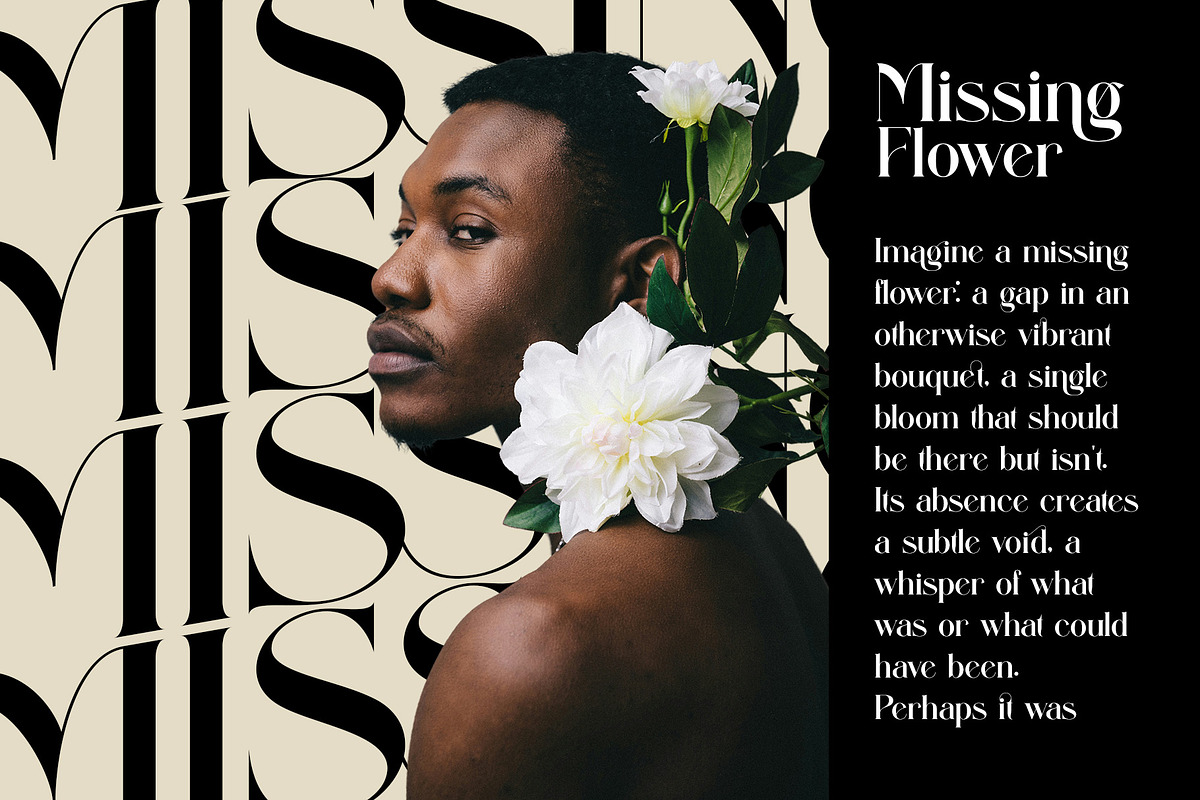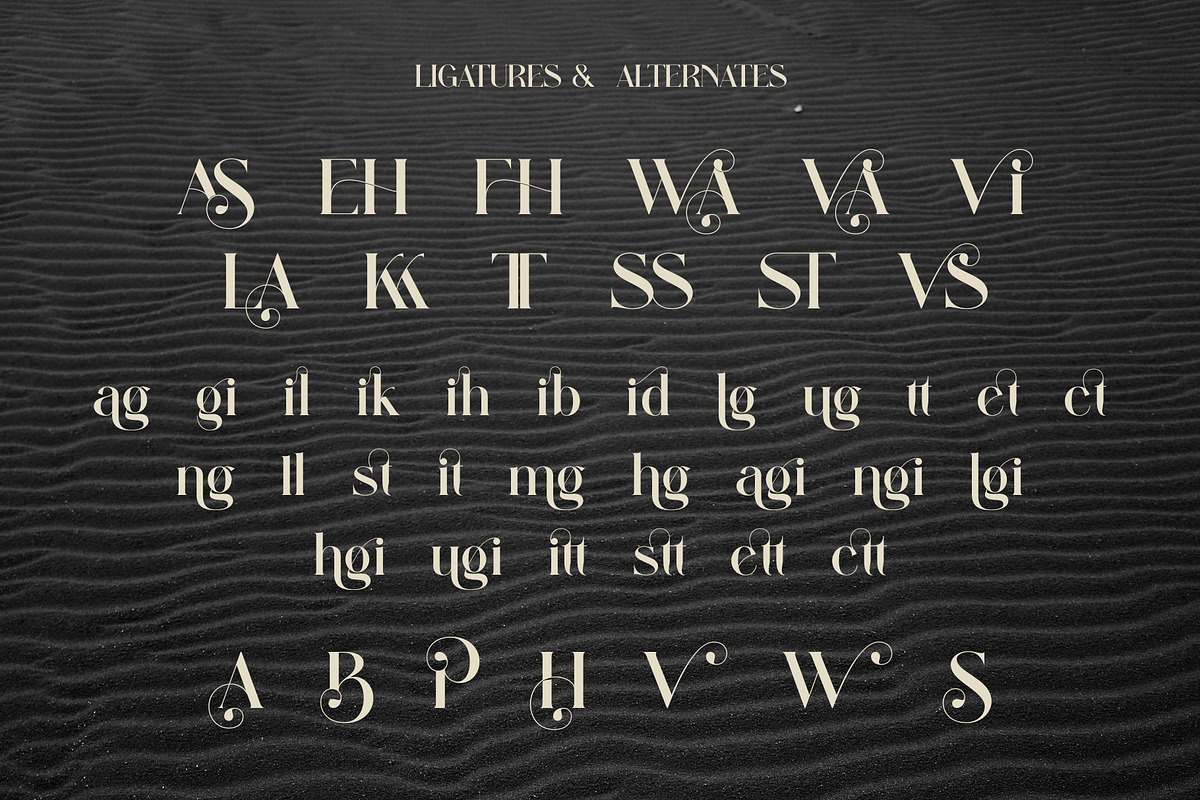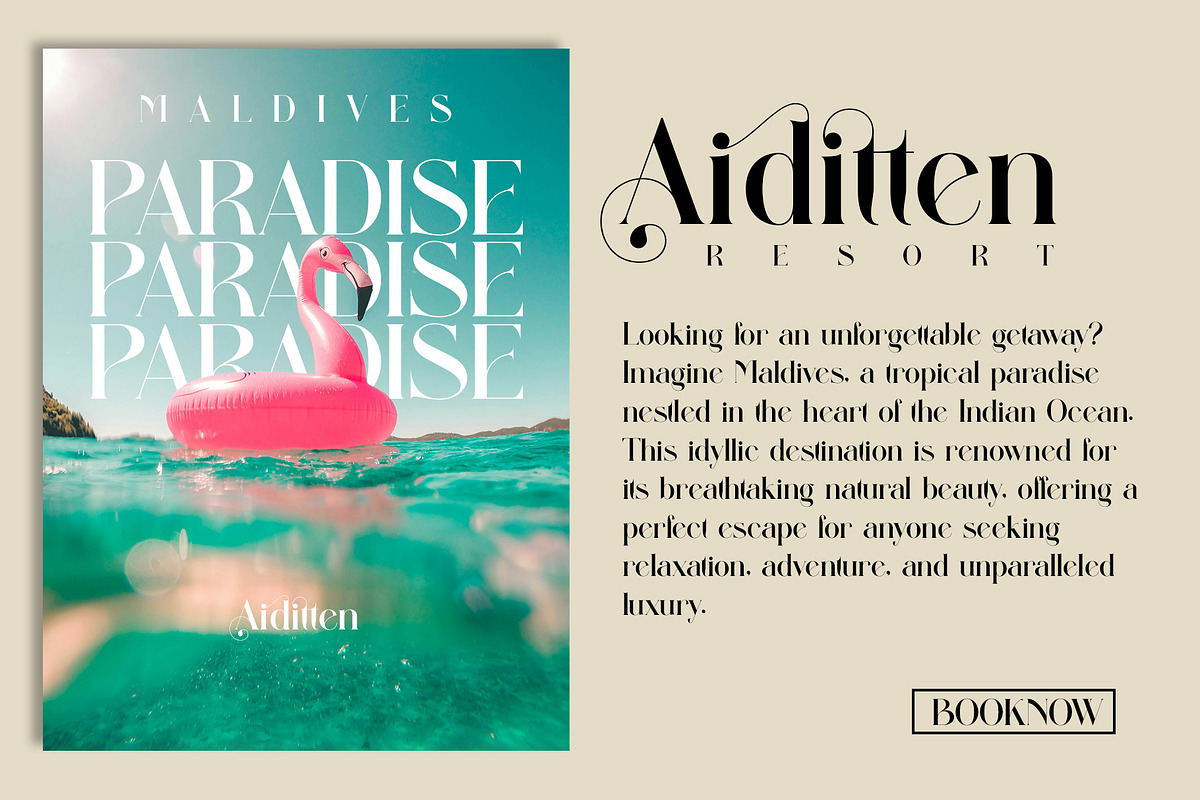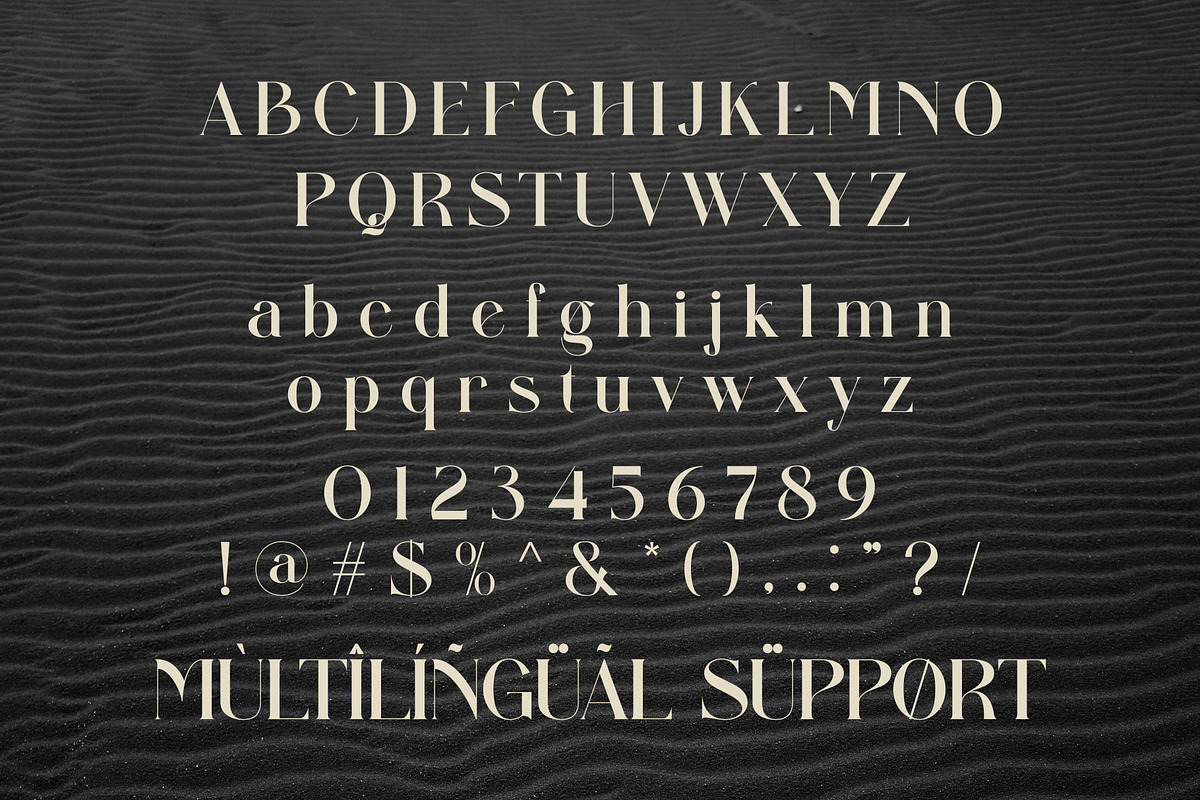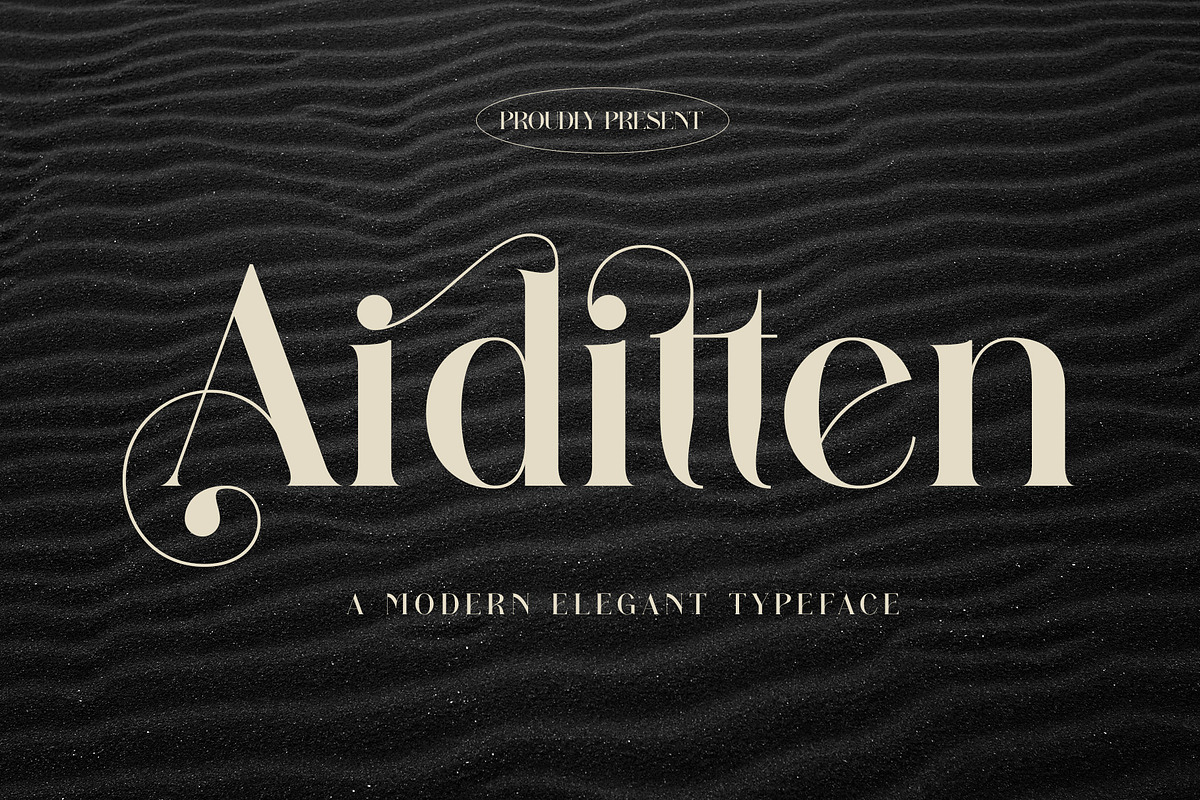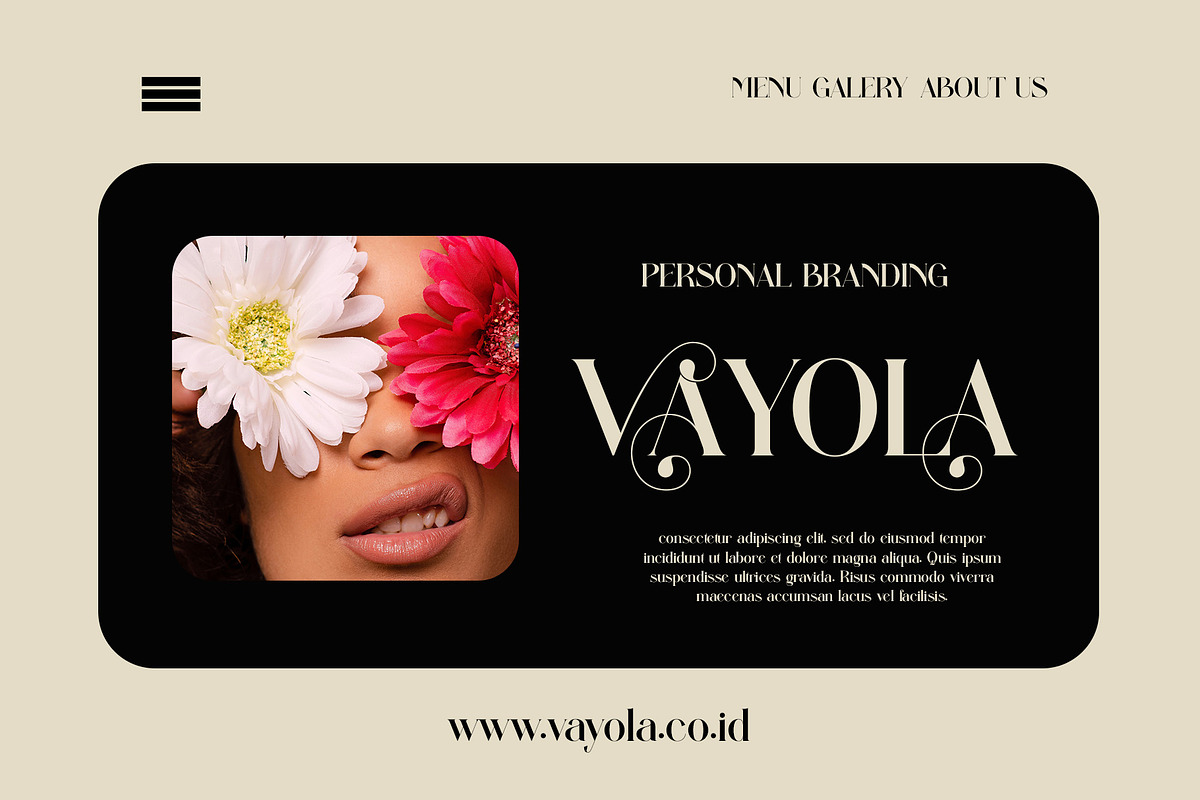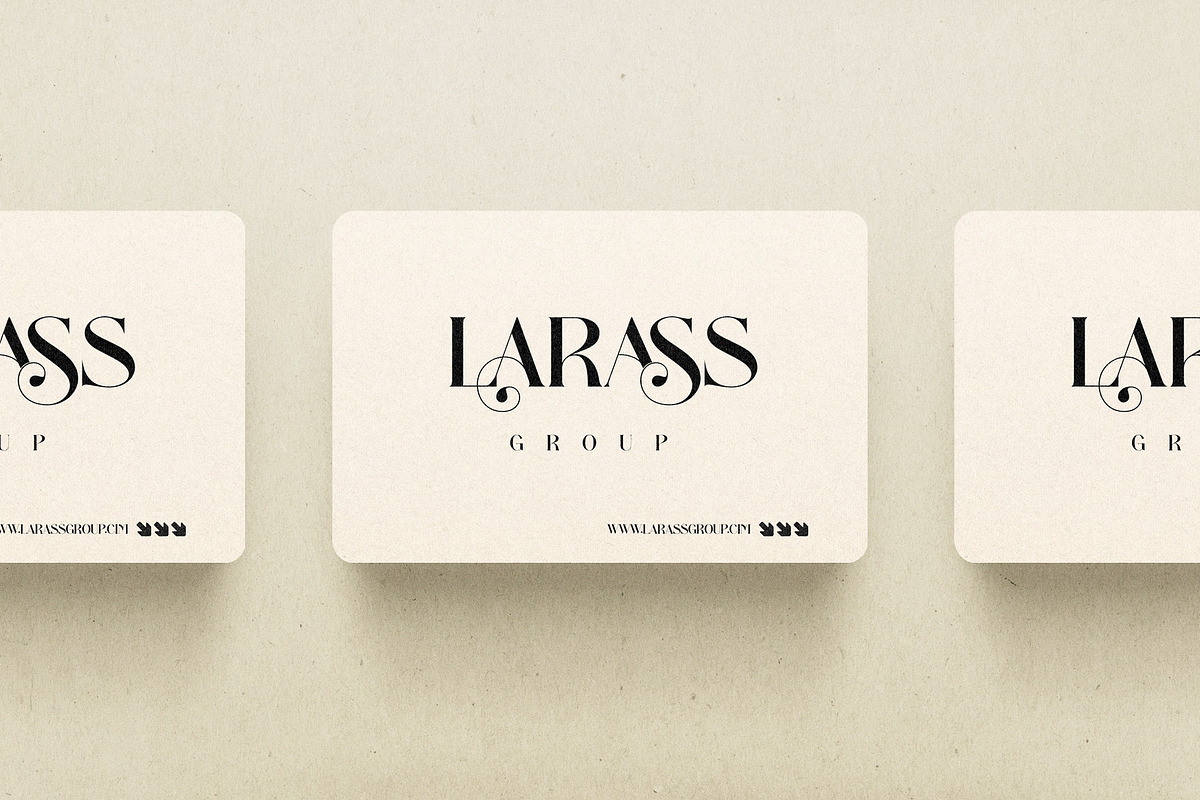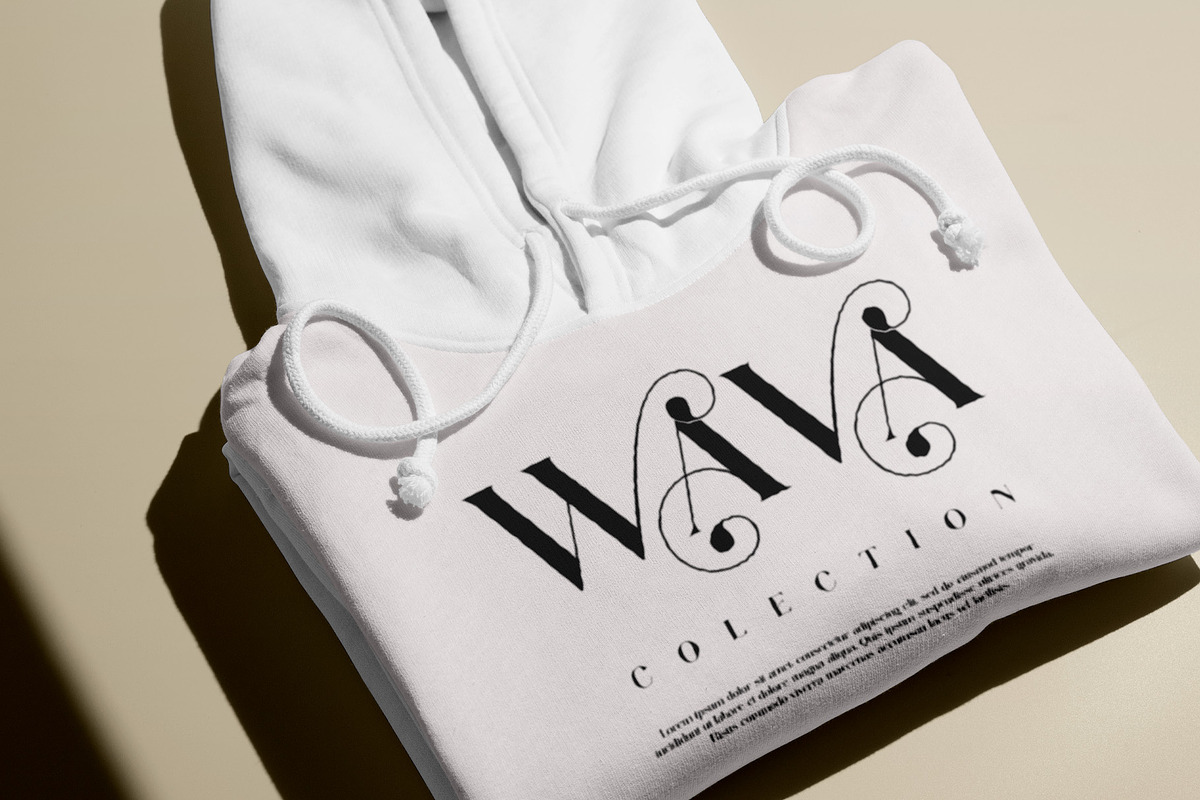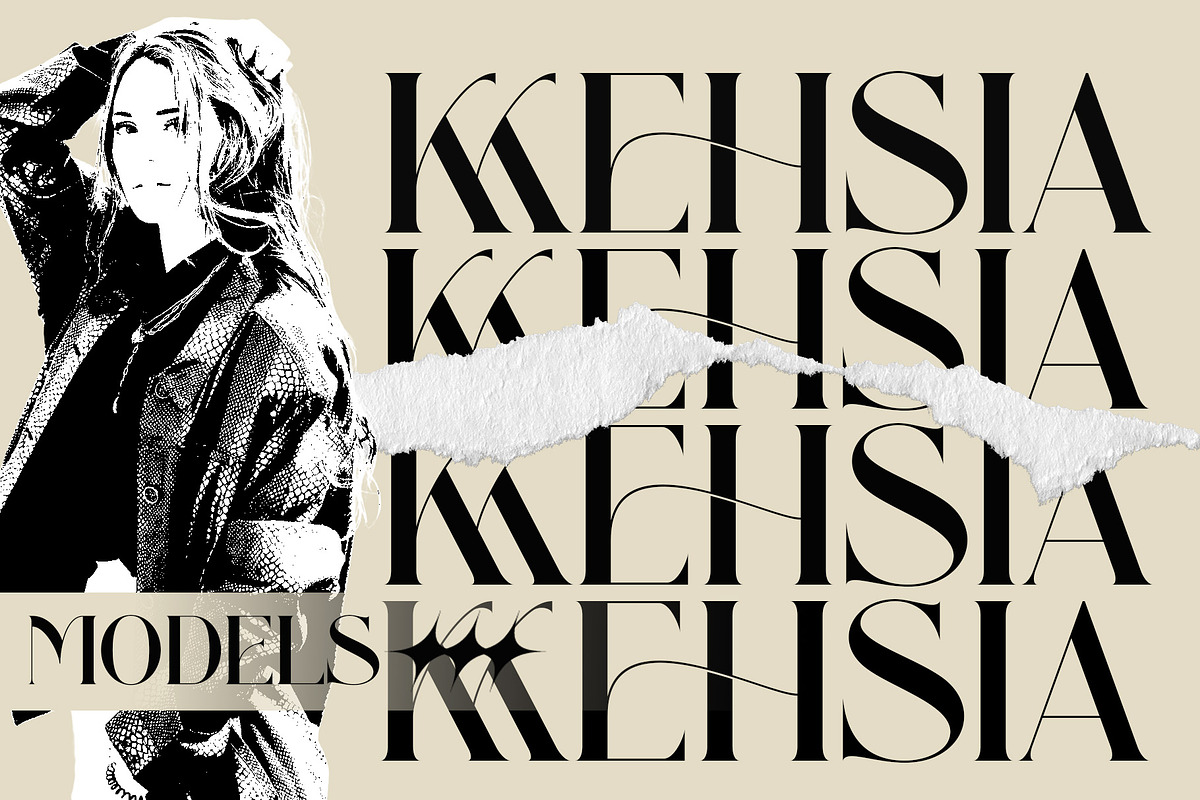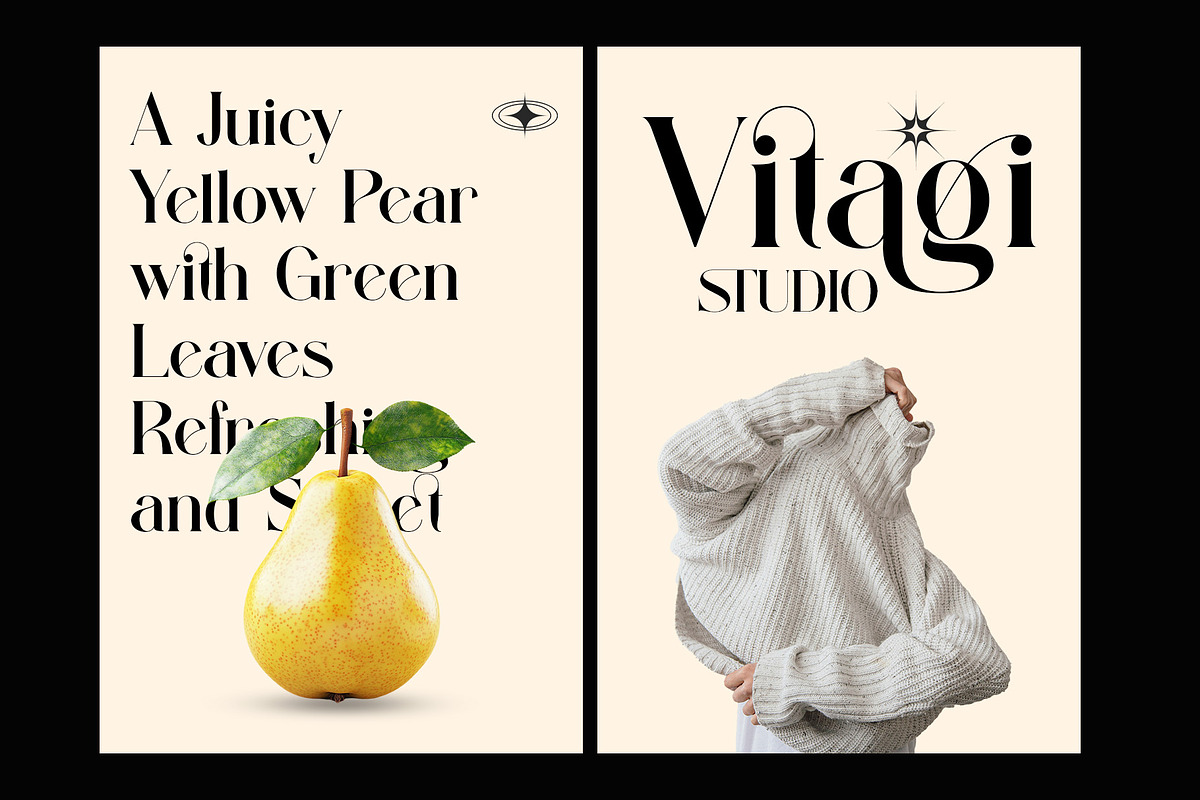
Aiditten Elegant Serif
Aiditten is an elegant modern typeface crafted to exude sophistication, clarity, and contemporary charm. With its refined letterforms and graceful curves, Aiditten is perfect for upscale branding, wedding invitations, luxury packaging, high-end editorials, and stylish logo designs.
This font strikes the perfect balance between timeless elegance and modern minimalism, making it an ideal choice for designers seeking beauty and functionality in one cohesive typeface.
Sleek and clean design with a contemporary touch
Distinctive letterforms that add strong personality
Perfect for headlines, logos, and luxury branding
Multilingual support included